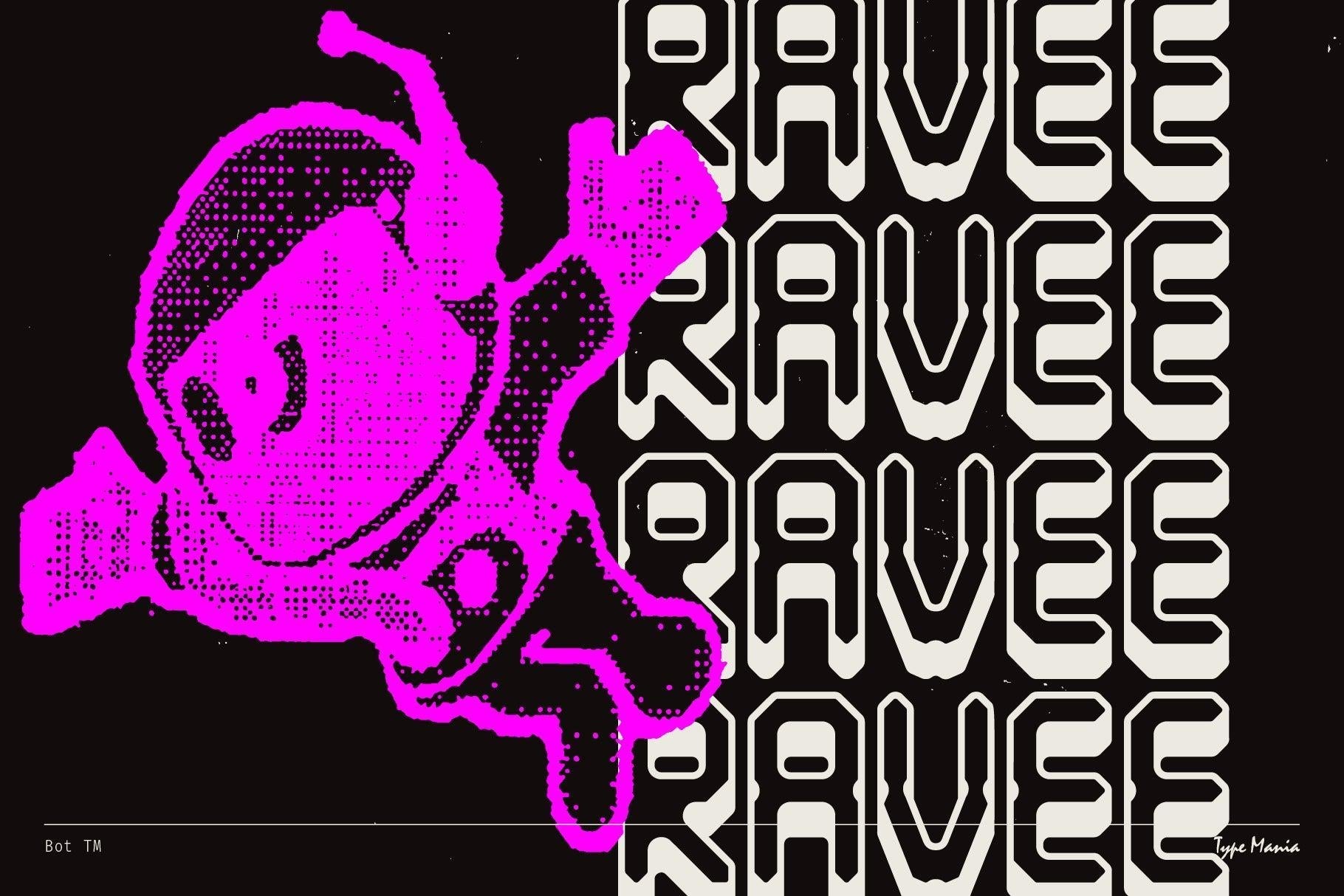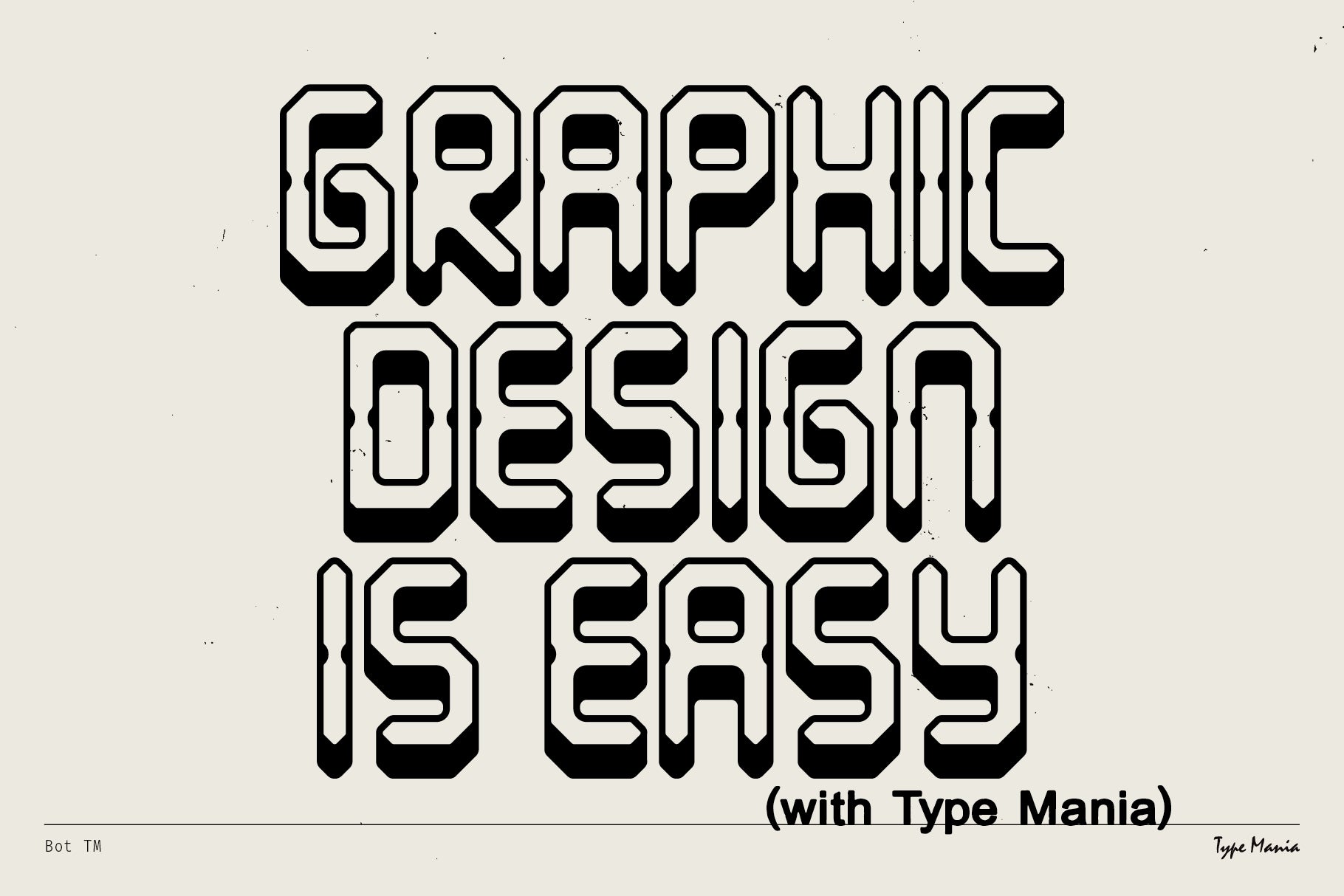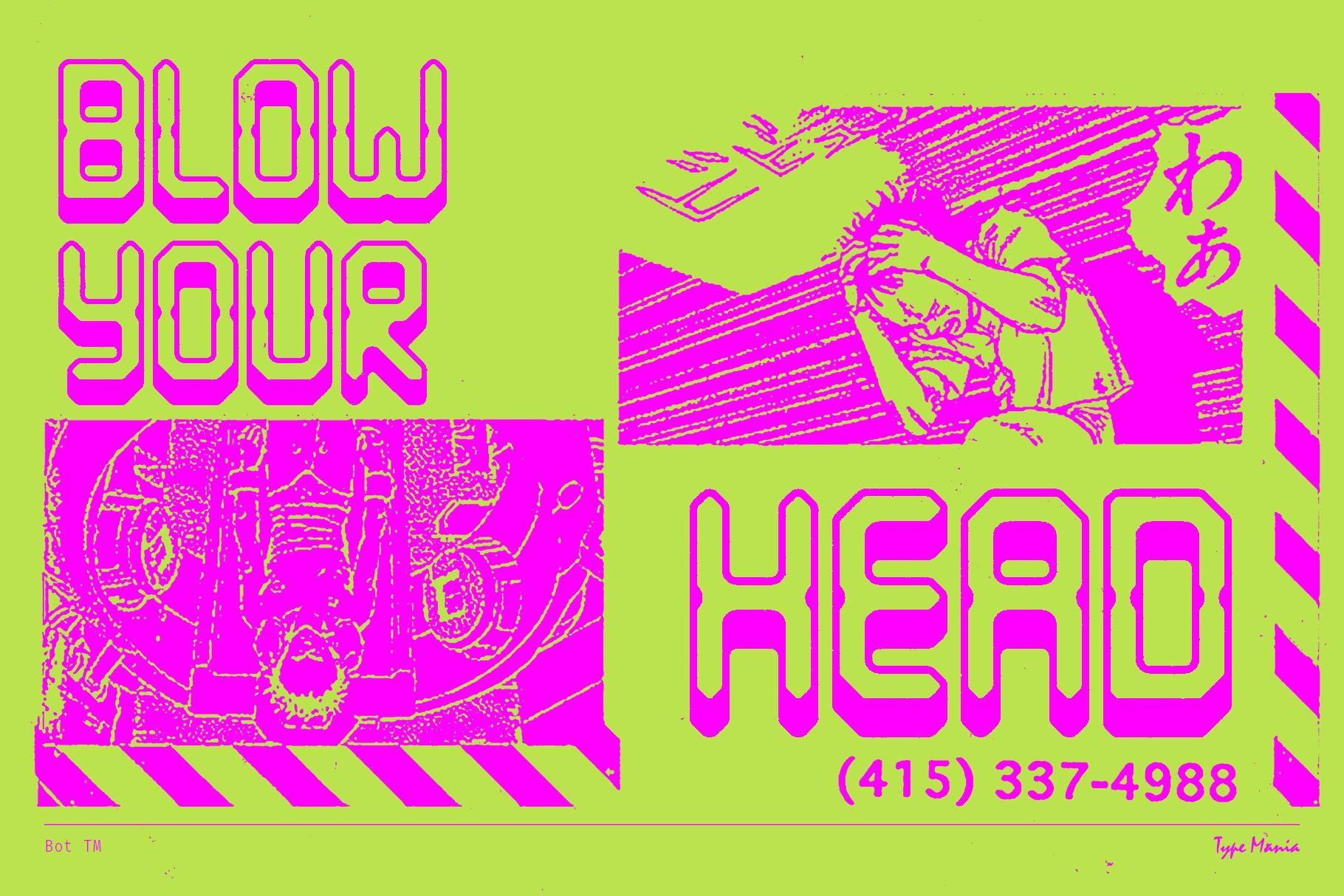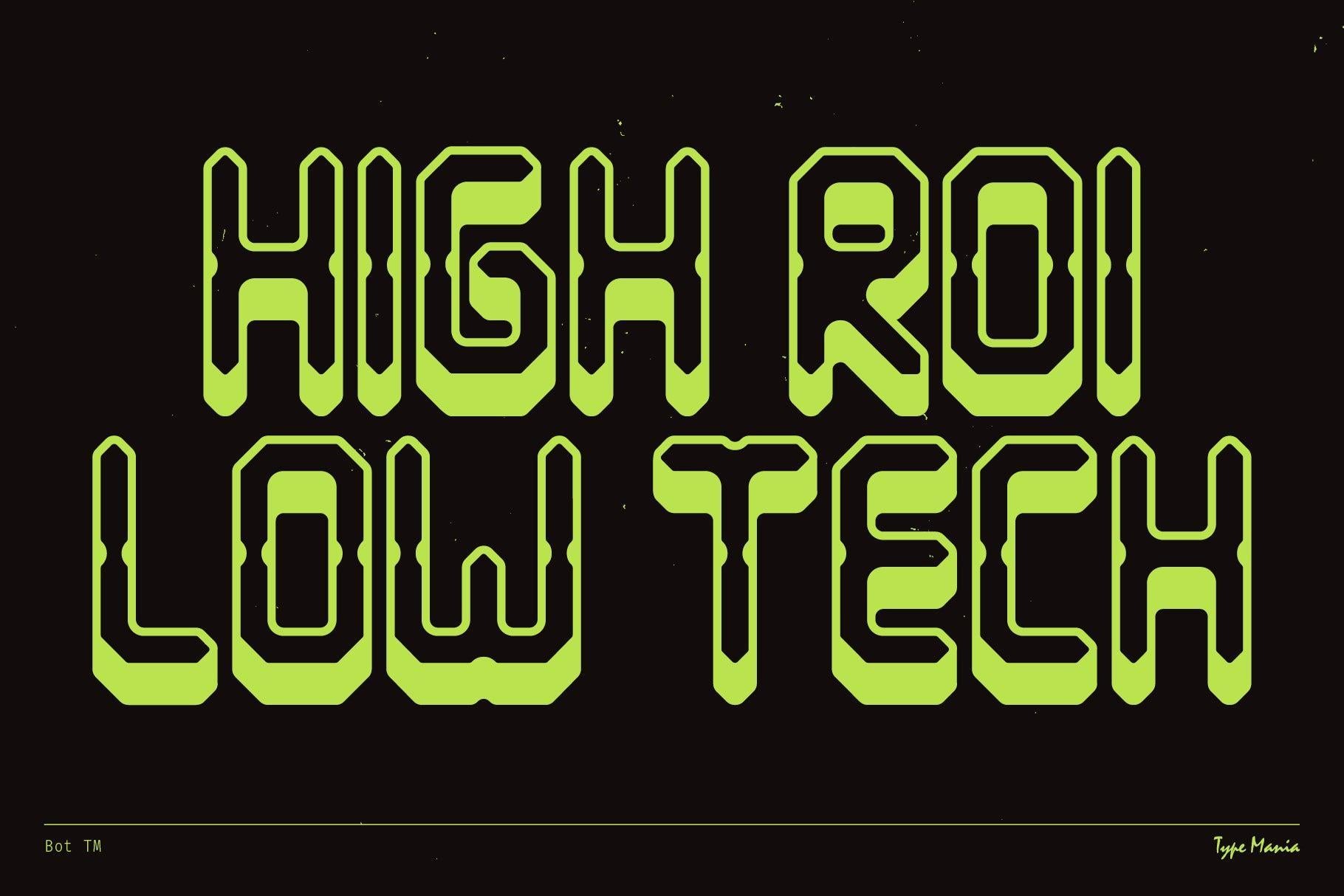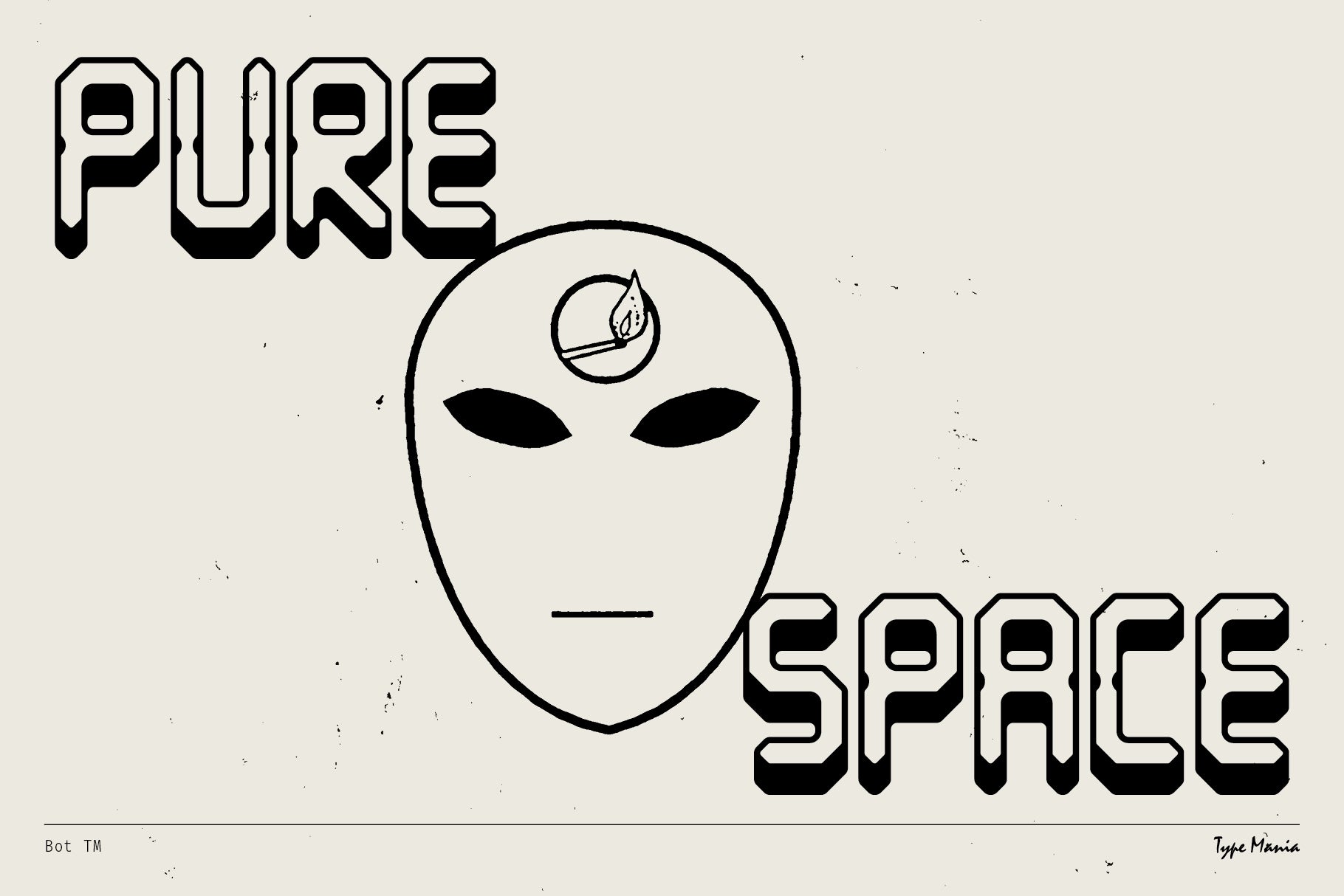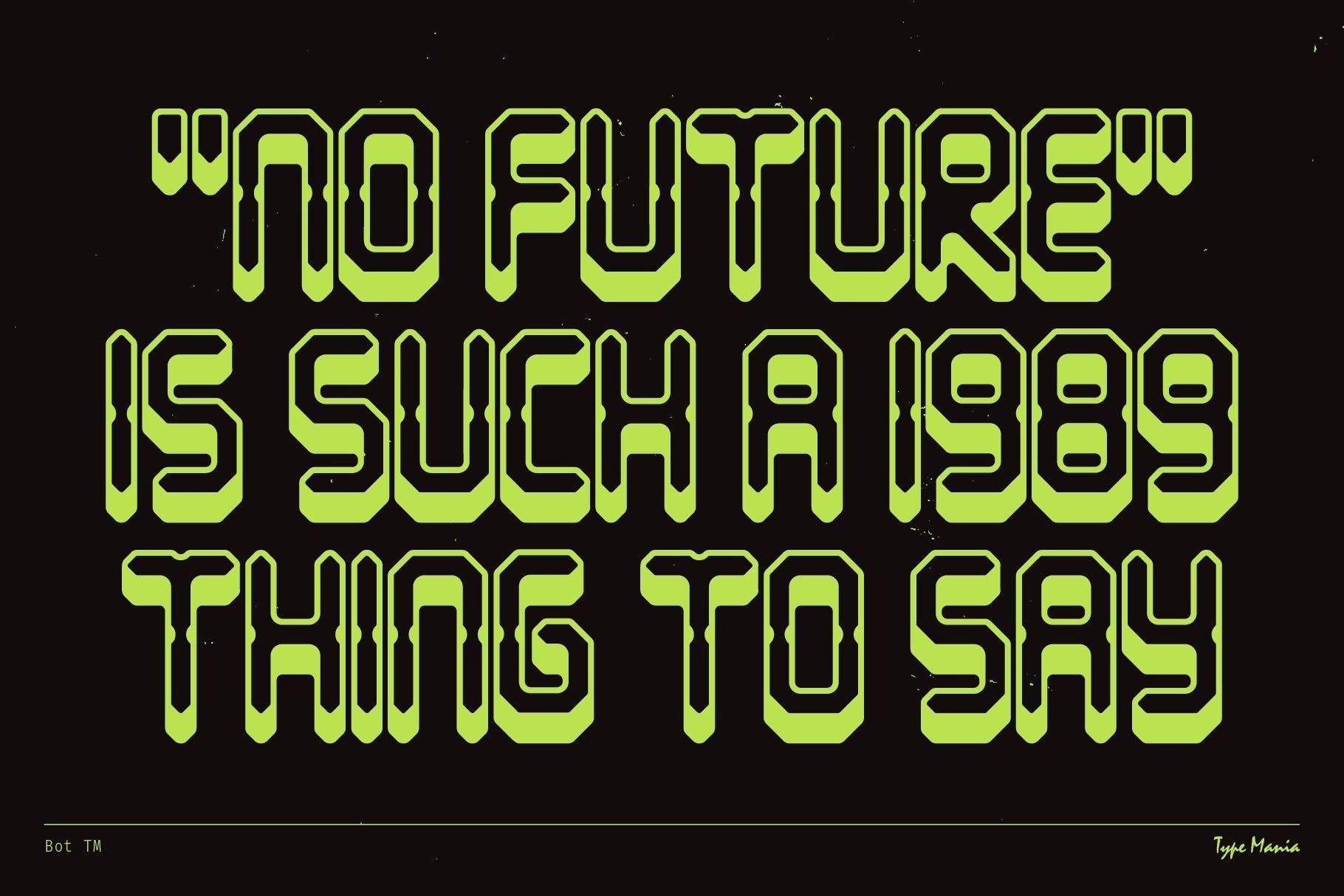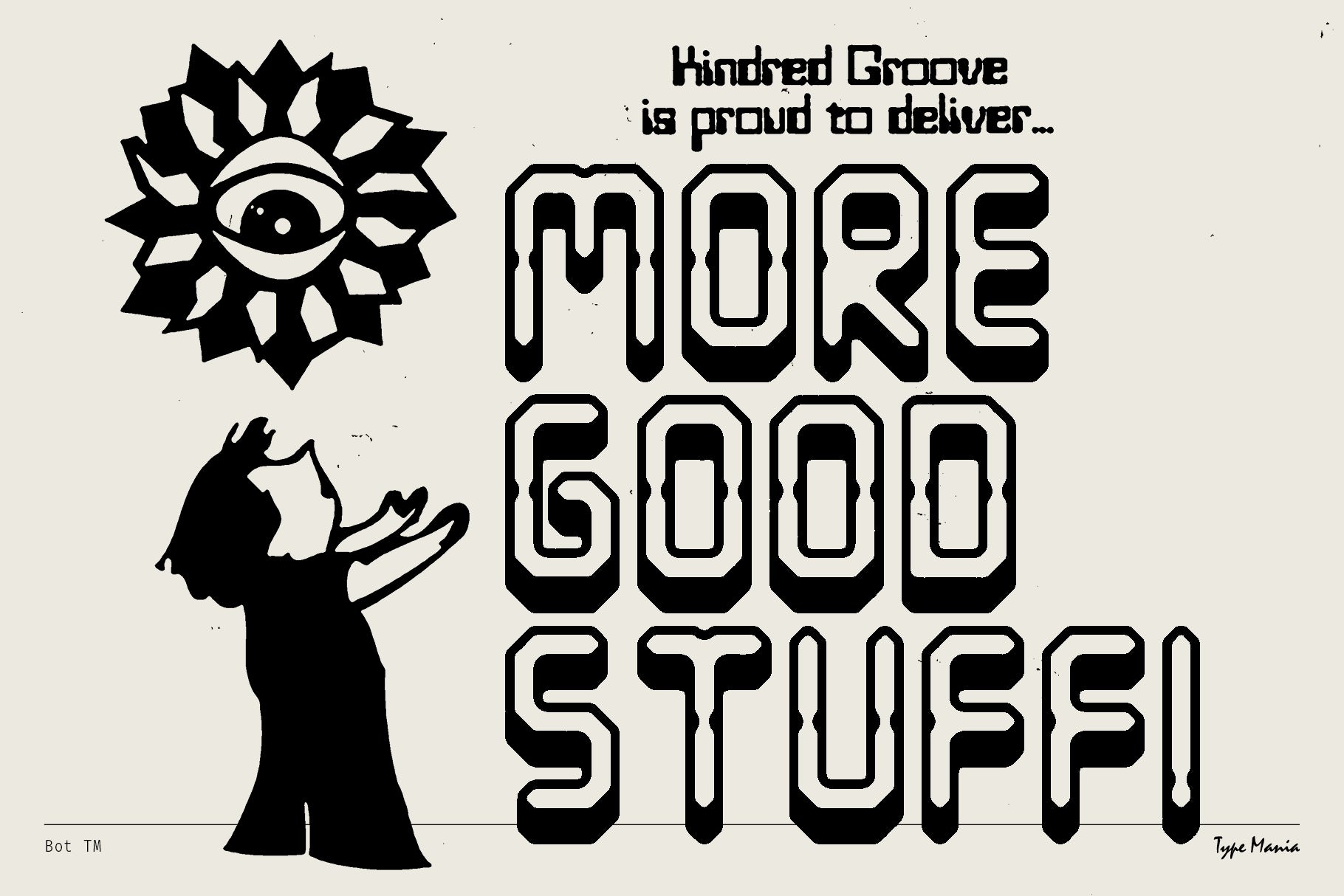
Bot TM
Bot TM pulls from the raw charm of early digital type. Rigid, modular, machine-made—it's perfect for your rave revivalist flyer, t-shirt, bootleg 12"... U get the idea 🔊🔊